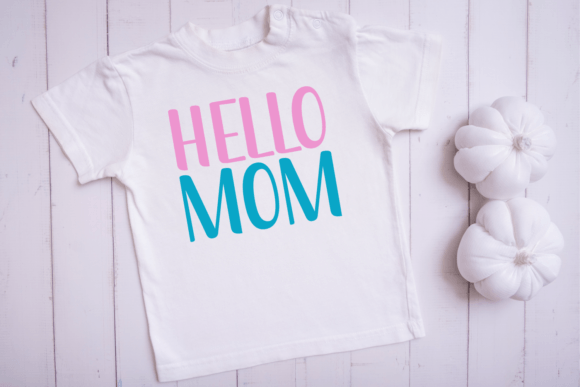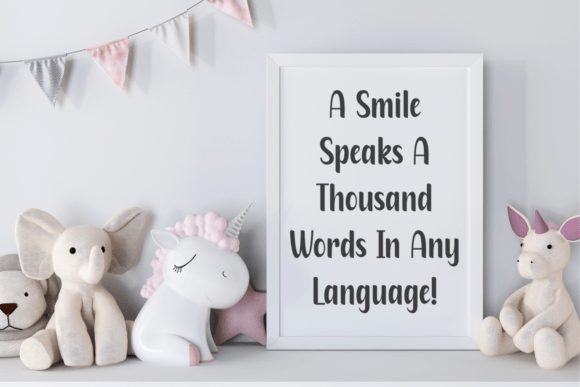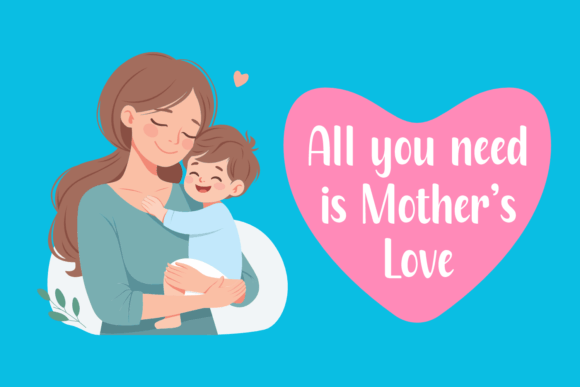
Introduction to Brights Mindset Font
Brights Mindset is an elegant handwritten font.
Brights Mindset is versatile and works well in a variety of contexts, including greeting cards, childrenโs books, invitations, logos, and posters Its playful style also makes it suitable for party decorations, fun branding, and social media graphics.
Key Features of Brights Mindset Font
Why Choose Brights Mindset Font?
Brights Mindset Font offers exceptional quality and versatility, making it a valuable addition to your design toolkit. Whether you’re creating for personal projects or commercial use, Brights Mindset Font delivers professional results.